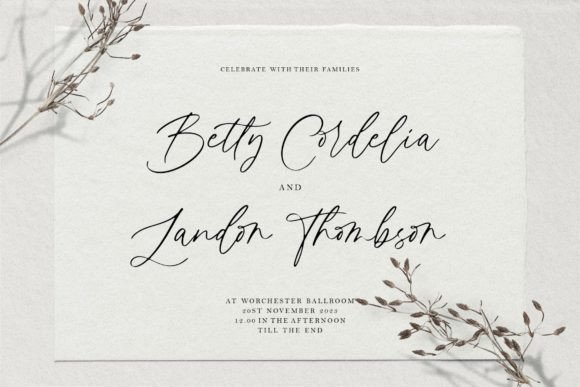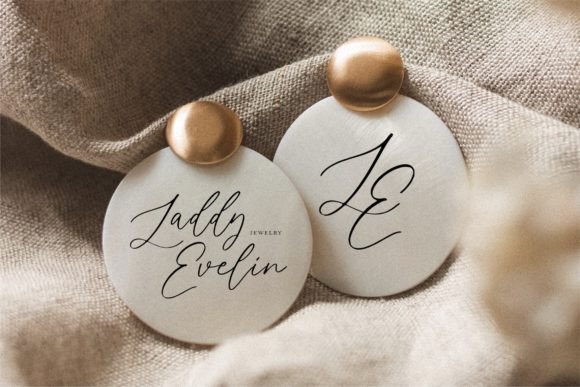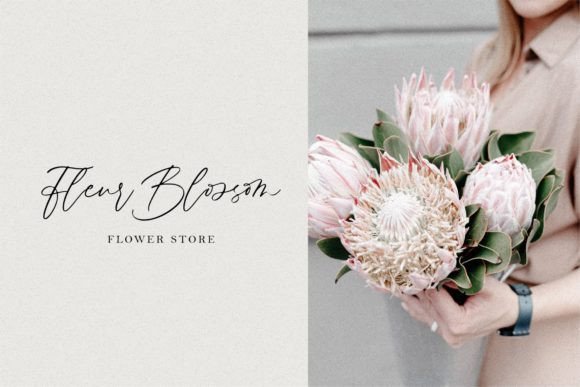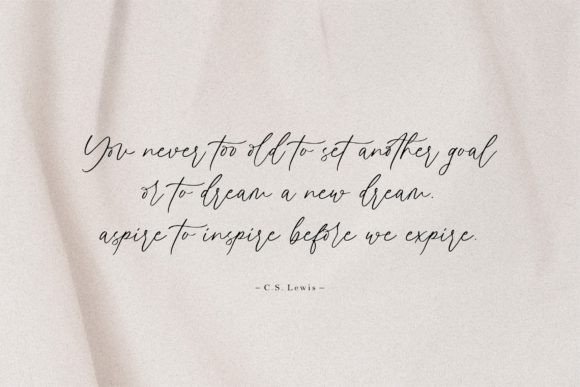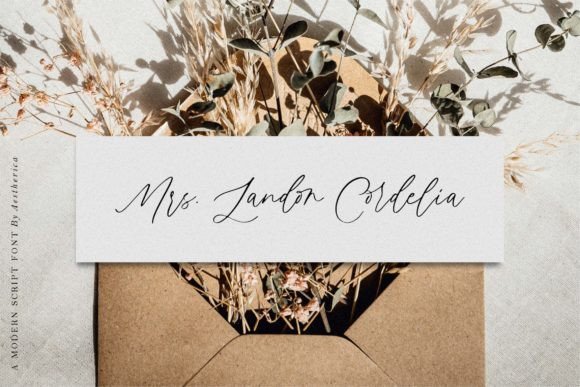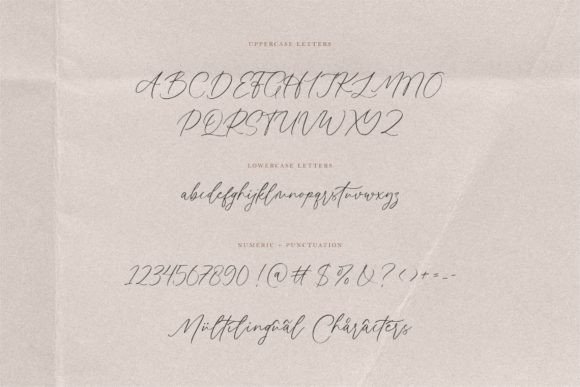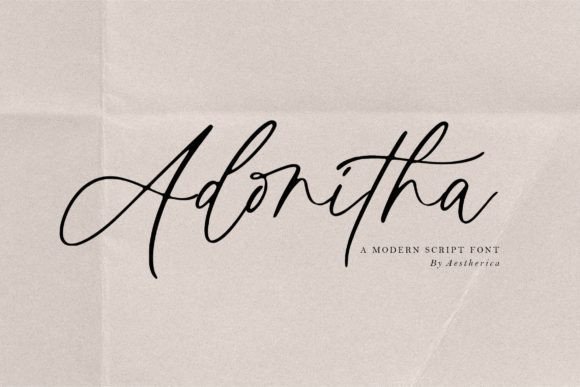
Introducing Adonitha Font: Elevate Your Design with Elegance and Sophistication
Are you a designer, crafty enthusiast, or simply someone who appreciates beautiful typography? Look no further! We’re proud to present Adonitha, a stunning font that can elevate your designs to new heights. Whether you’re working on product packaging, branding projects, magazines, social media, weddings, or just want to add a touch of elegance to your creative endeavors, Adonitha is the perfect choice.
What Makes Adonitha Special?
Adonitha is more than just a font – it’s an experience. With its unique blend of classic and modern elements, this font is sure to make your designs stand out from the crowd. Its elegant and sophisticated style makes it perfect for a wide range of applications, from luxury branding to wedding invitations. The versatility of Adonitha ensures that it can be used in various contexts, making it a valuable addition to any designer’s toolkit.
Perfect for Product Packaging and Branding
Product packaging and branding are crucial aspects of any business, and the right font can make all the difference. Adonitha’s sophisticated and elegant style makes it an ideal choice for product packaging, labels, and branding projects. Its unique character set and versatility ensure that your brand stands out on store shelves and in marketing materials.
Magazines and Social Media
Adonitha is also perfect for editorial design, such as magazines, newspapers, and online publications. Its clear and readable style ensures that your content is easy to read and understand, while its elegant aesthetic adds a touch of sophistication to your designs. Additionally, Adonitha can be used to create stunning social media graphics, such as quotes, posters, and flyers, that are sure to grab the attention of your audience.
Weddings and Special Events
Weddings and special events are a great way to showcase your creativity and style, and Adonitha is the perfect font to use. Its elegant and sophisticated style makes it ideal for wedding invitations, programs, and other stationery. You can also use Adonitha to create beautiful signage, banners, and other decorative elements that will make your event unforgettable.
Why Choose Adonitha?
So, why choose Adonitha over other fonts? Here are just a few reasons:
- Versatility: Adonitha can be used in a wide range of applications, from product packaging to weddings.
- Elegance: Adonitha’s sophisticated style adds a touch of elegance to any design.
- Unique Character Set: Adonitha’s unique character set ensures that your designs stand out from the crowd.
- Easy to Read: Adonitha’s clear and readable style ensures that your content is easy to read and understand.
| Author | Aestherica Studio |
Proudly Present, Adonitha is perfect for product packaging, branding project, magazines, social media, weddings, or just used to express words above the background.